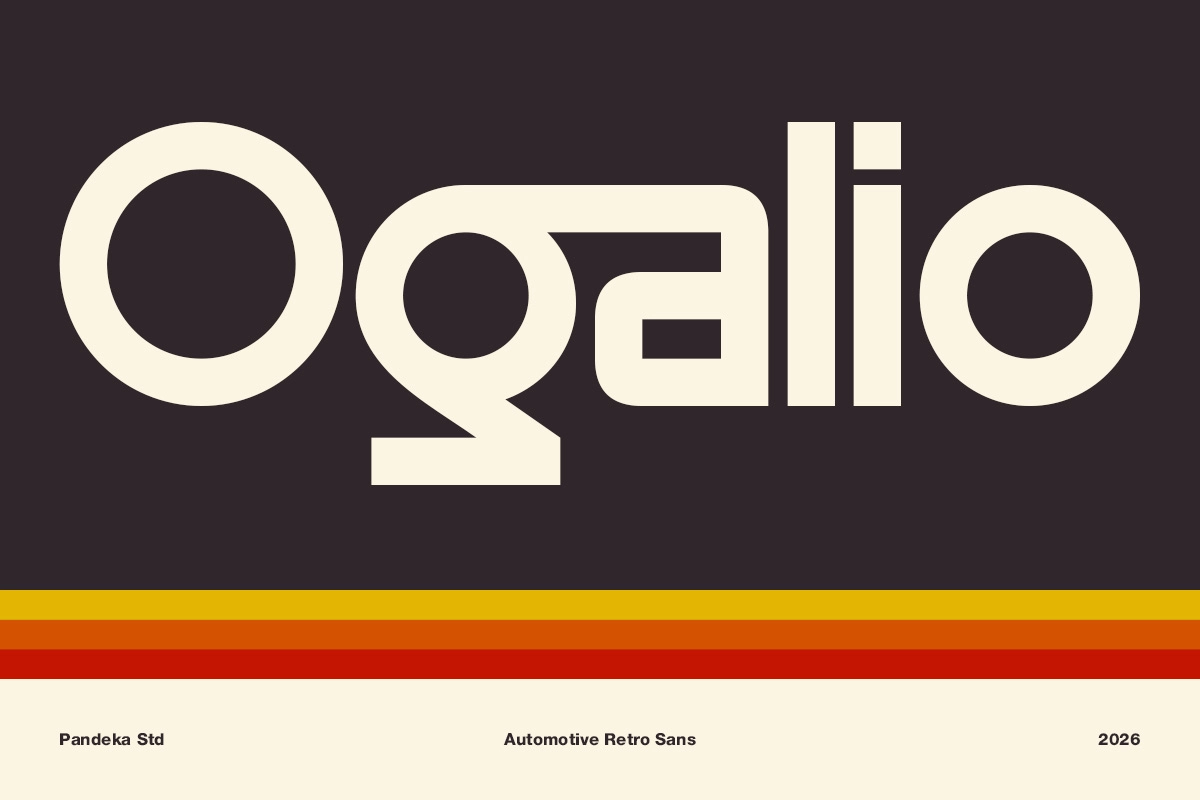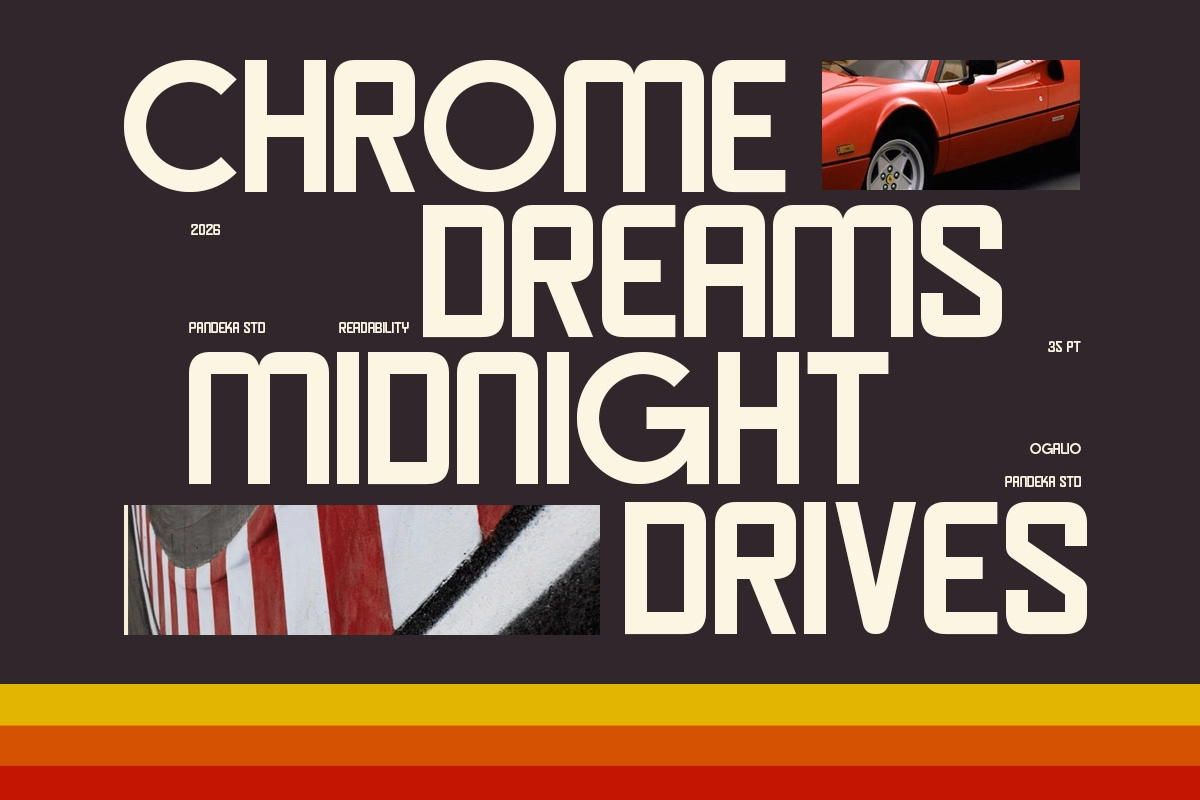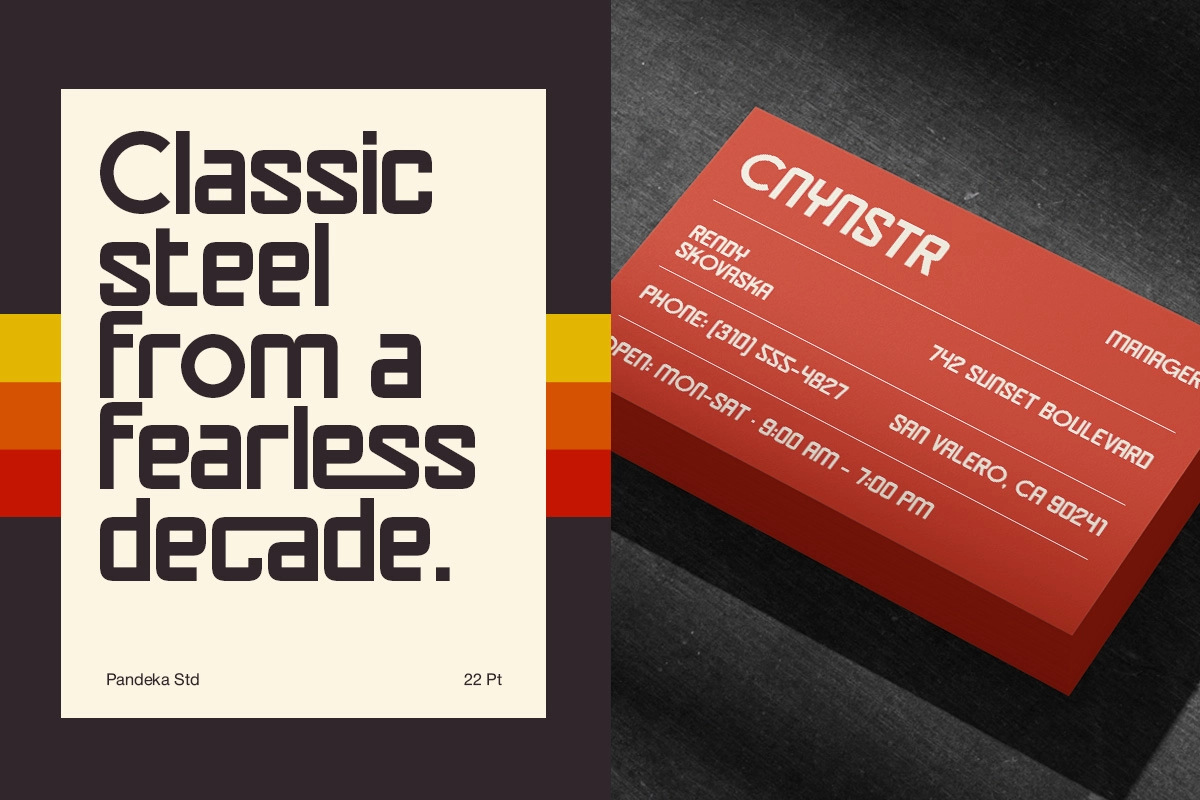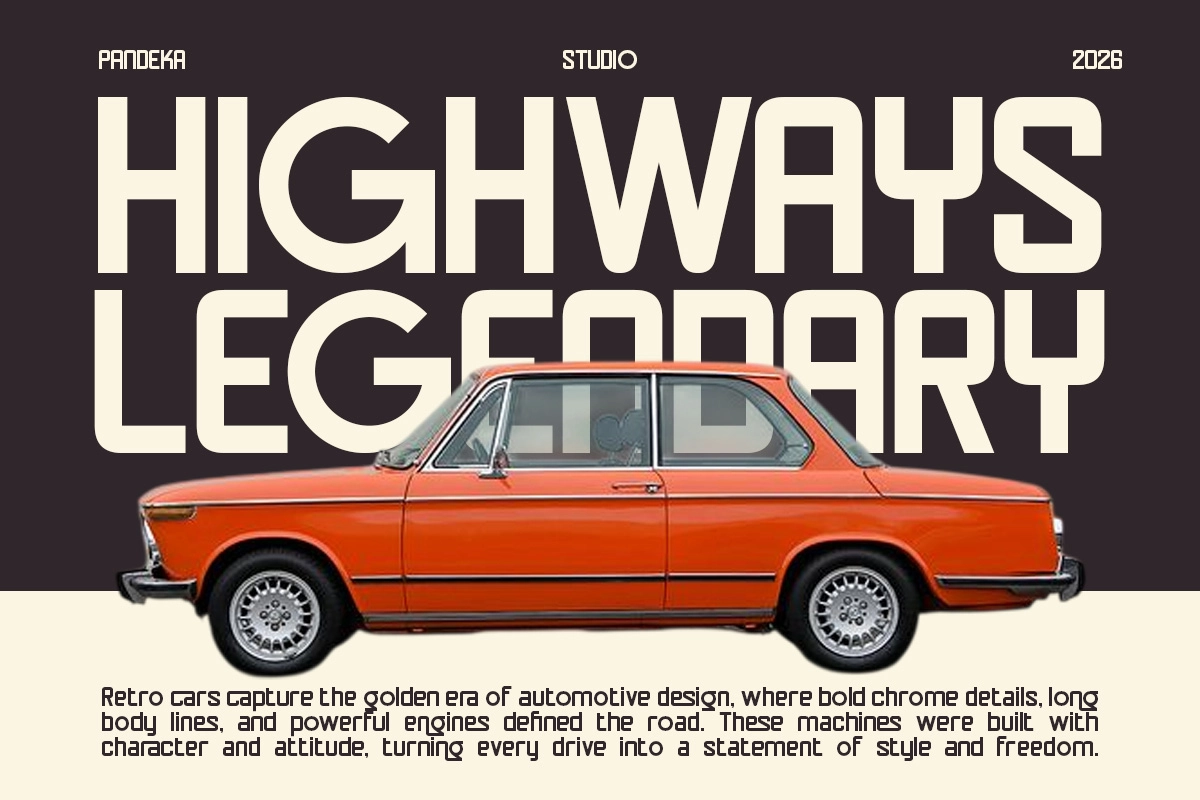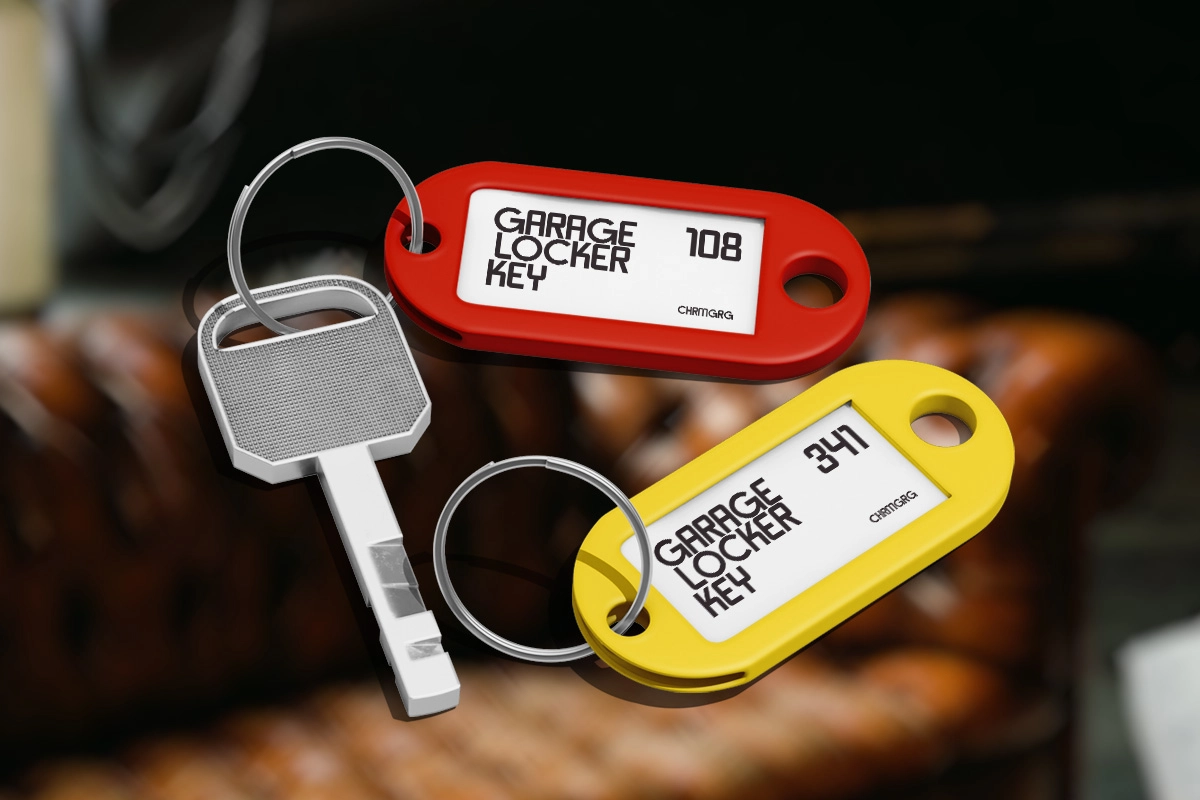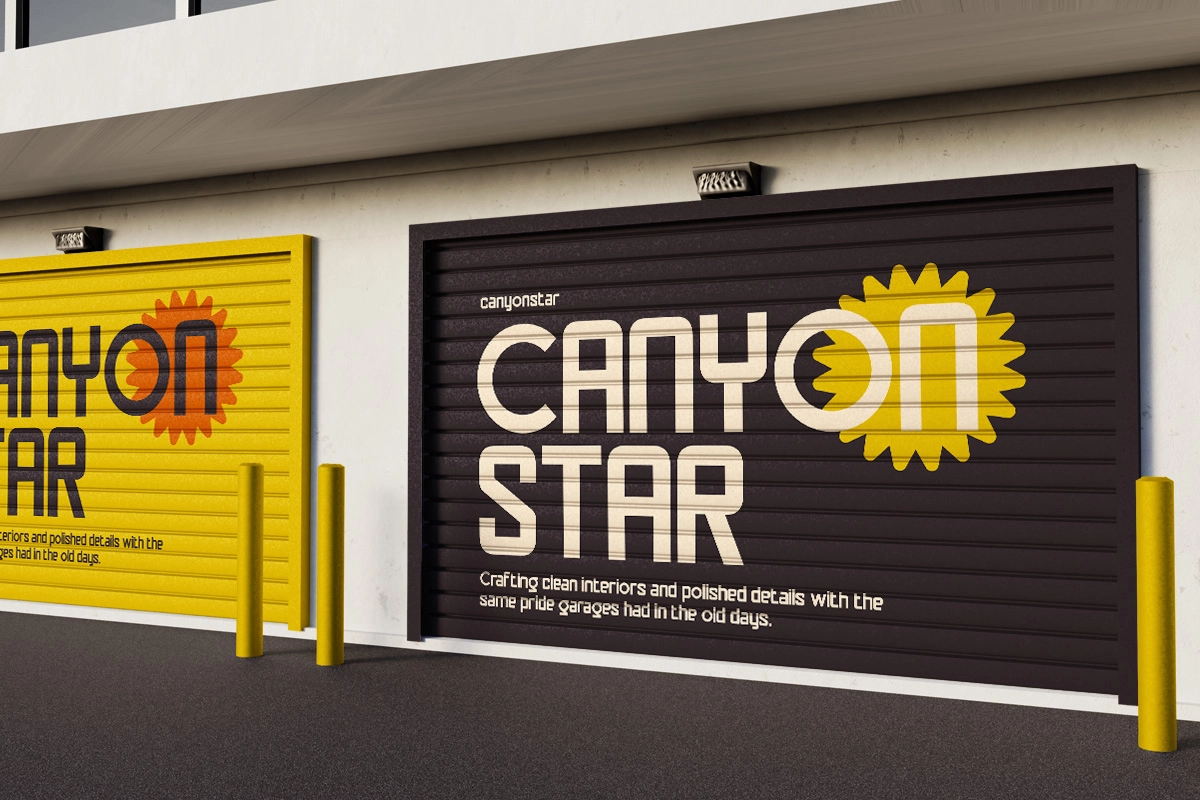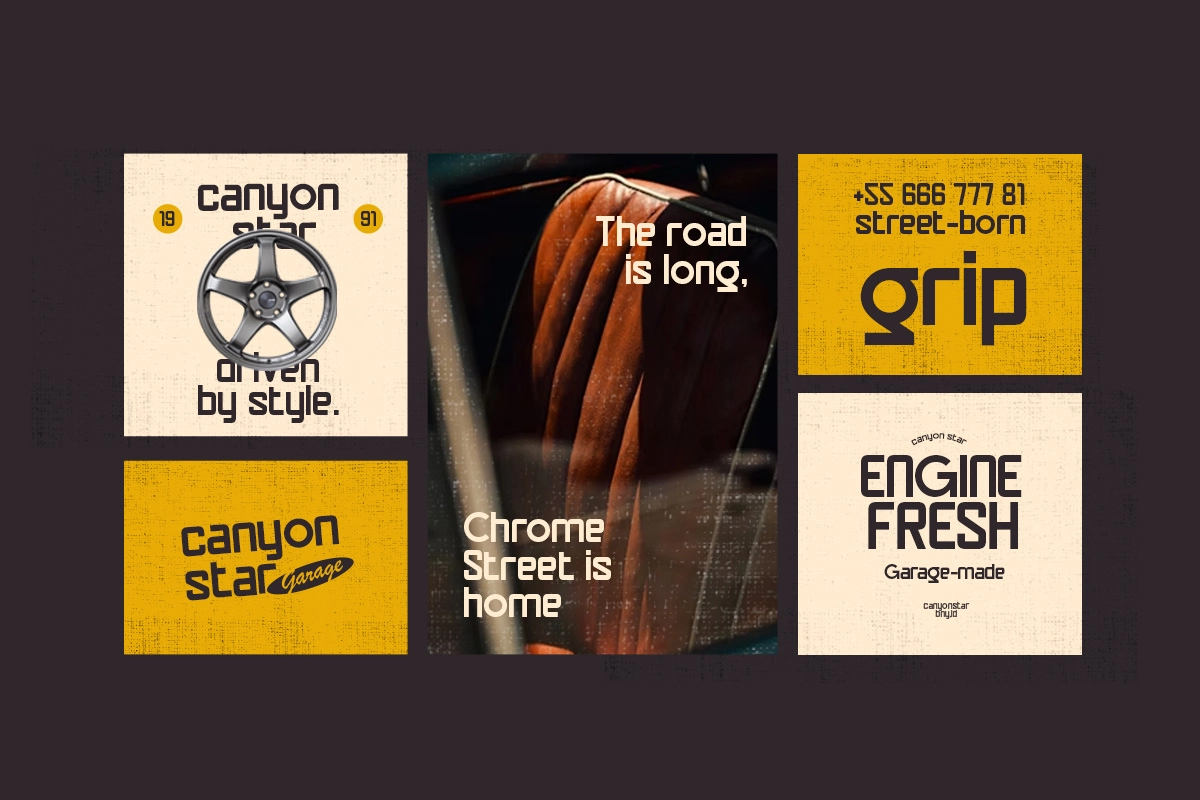
Ogalio - Automotive Retro Display Sans Font
Ogalio is a retro display font built around the proportions and graphic confidence of 1970s automotive design — wide geometric rounds, squared-off stroke endings, and a mass-heavy construction that reads as something between a Le Mans race program and a Detroit showroom poster. The characters carry no contrast variation; every stroke holds the same thick weight, which gives the typeface an industrial solidity rare in headline fonts of this register.
Ogalio works at scale and in short bursts — logotype lockups, venue signage, packaging headlines, editorial titles with hard-edged attitude. Use it for garage and workshop branding, automotive event posters, racing team identity, vintage speedway programs, product packaging with a muscle-era sensibility, retro-themed apparel graphics, sports branding, bold social headlines, and album cover typography.